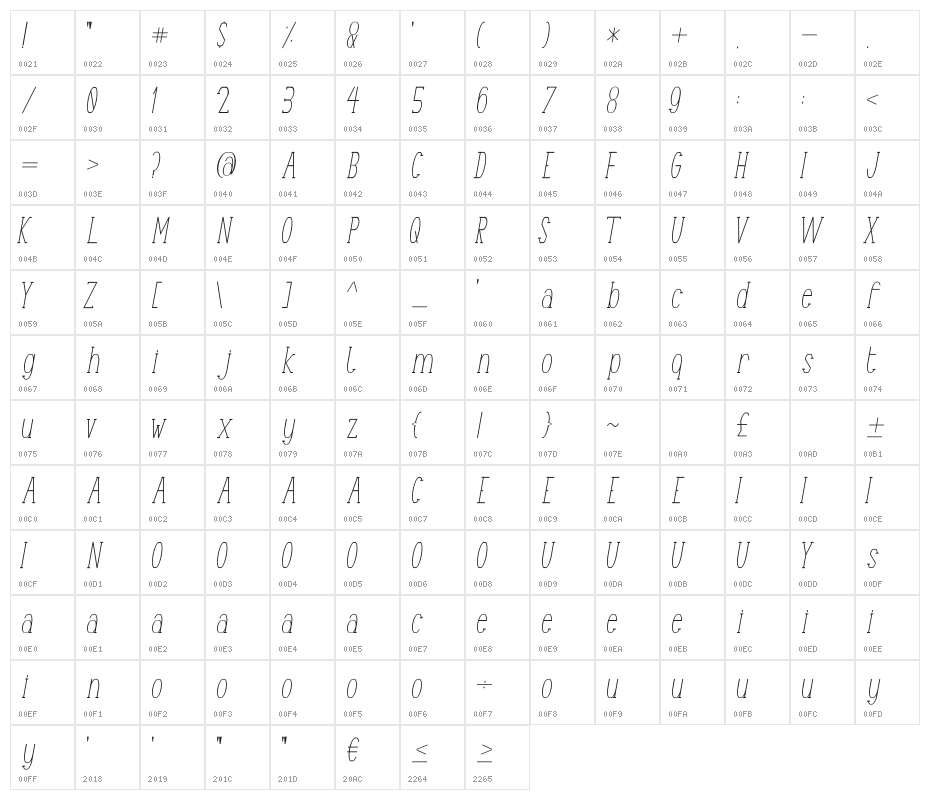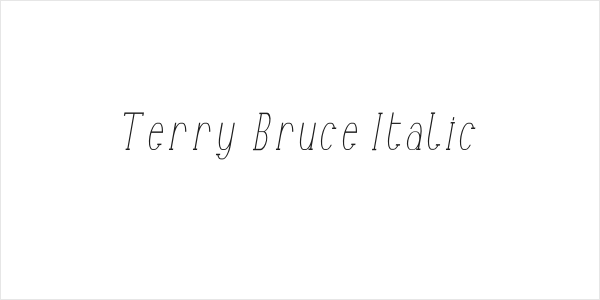
Terry Bruce Italic Font
Terry Bruce Italic Description
This font features a sleek and elegant italic style, characterized by its thin, elongated letterforms and subtle slant. The uppercase letters are tall and narrow, with a consistent stroke width that gives them a refined appearance. The lowercase letters maintain a similar slenderness, with gentle curves and a slight forward tilt that enhances the font's graceful look. Numbers are designed with the same thin strokes, ensuring uniformity across the character set. Special characters are crafted with precision, maintaining the font's overall sophisticated aesthetic. The font's clean lines and understated elegance make it suitable for a variety of design applications.
Proposed ProjectsIdeal for wedding invitations, elegant branding, fashion magazines, and upscale product packaging.